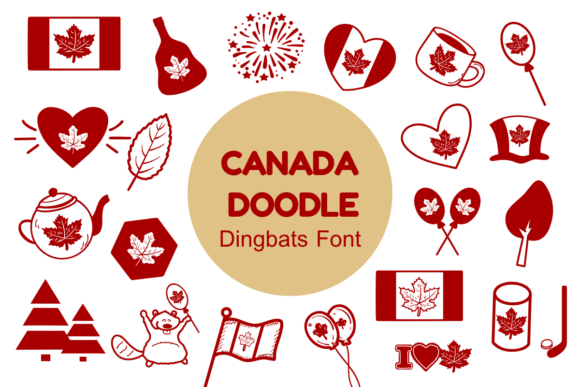
Canada Doodle Font: A Fun and Patriotic Font for Your Projects
Are you looking for a unique and festive font to add a touch of Canadian charm to your projects? Look no further than the Canada Doodle Font! This fancy font is filled with Canadian symbols like maple leaves, making it perfect for fun and patriotic projects. In this article, we’ll take a closer look at the Canada Doodle Font, its features, and how you can use it to add a touch of Canadian flair to your designs.
What is Canada Doodle Font?
Canada Doodle Font is a decorative font that is inspired by the country’s rich history and culture. Each letter is designed with a unique Canadian touch, making it a standout font for any project. The font features intricate designs and patterns that are reminiscent of Canadian symbols, such as maple leaves, mountains, and wildlife.
Features of Canada Doodle Font
The Canada Doodle Font has several features that make it a great choice for your projects. Some of its key features include:
- Unique Canadian designs: Each letter is designed with a unique Canadian touch, making it perfect for projects that require a touch of patriotism.
- Maple leaf theme: The font features a prominent maple leaf theme, which is a iconic symbol of Canada.
- Fancy and decorative: The font is highly decorative, making it perfect for projects that require a touch of elegance and sophistication.
Uses of Canada Doodle Font
The Canada Doodle Font is a versatile font that can be used for a variety of projects, including:
- Patriotic projects: The font is perfect for projects that require a touch of patriotism, such as Canada Day celebrations, Canadian heritage projects, and more.
- Fun designs: The font’s playful and decorative nature makes it perfect for fun designs, such as posters, flyers, and social media graphics.
- Branding and marketing: The font can be used for branding and marketing projects, such as logos, business cards, and brochures.
- Education: The font can be used for educational projects, such as worksheets, presentations, and educational posters.
Benefits of Using Canada Doodle Font
There are several benefits to using the Canada Doodle Font, including:
- Unique and distinctive: The font is unique and distinctive, making it perfect for projects that require a touch of personality.
- Patriotic touch: The font adds a touch of patriotism to your projects, making it perfect for Canadian-themed projects.
- High-quality design: The font is designed with high-quality graphics, making it perfect for professional-looking projects.
In conclusion, the Canada Doodle Font is a fun and patriotic font that is perfect for adding a touch of Canadian charm to your projects. With its unique Canadian designs, maple leaf theme, and decorative nature, this font is sure to make your projects stand out. Whether you’re working on a patriotic project, a fun design, or a branding project, the Canada Doodle Font is a great choice.
- Q: What is the Canada Doodle Font?
- A: The Canada Doodle Font is a decorative font that is inspired by Canadian symbols and culture.